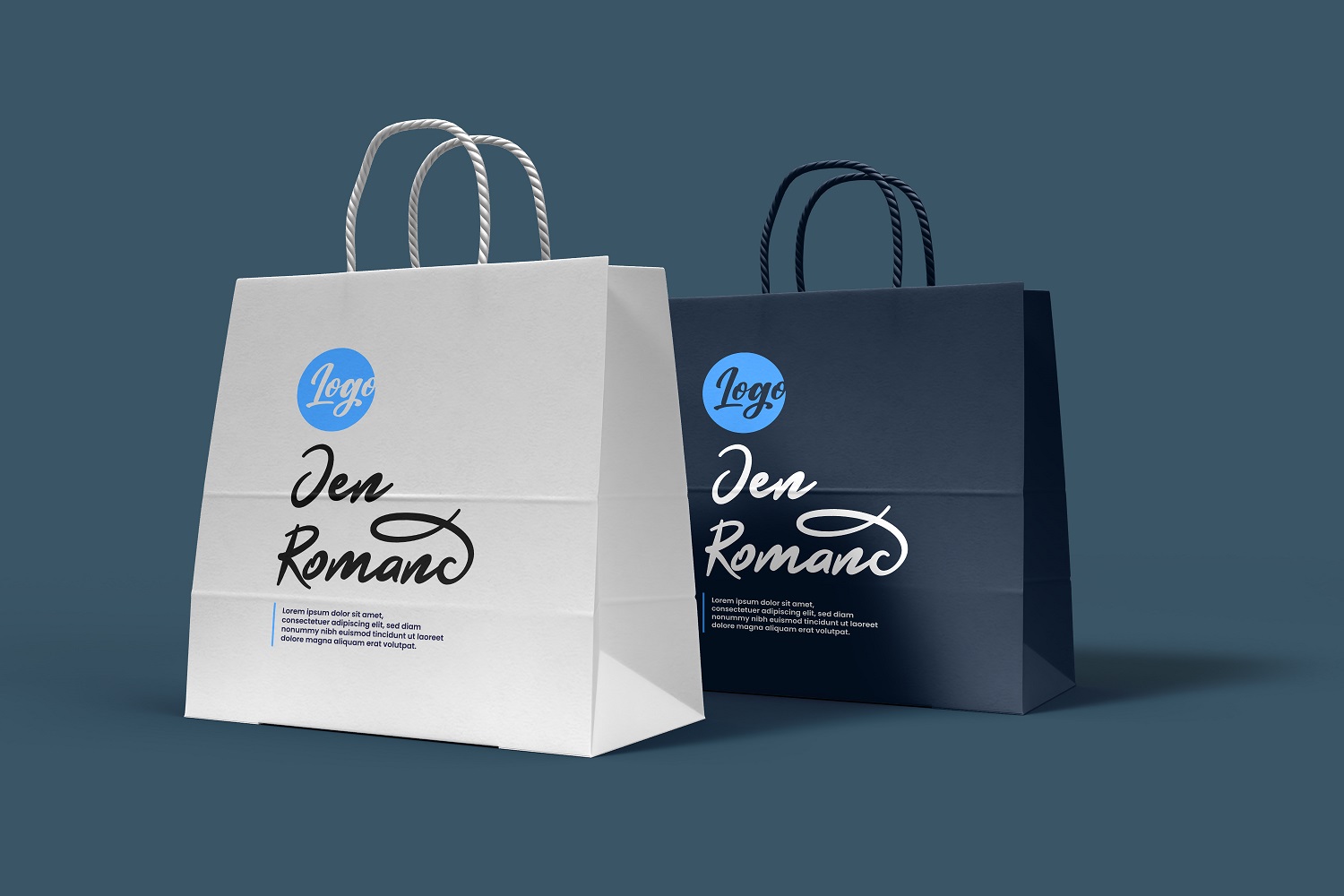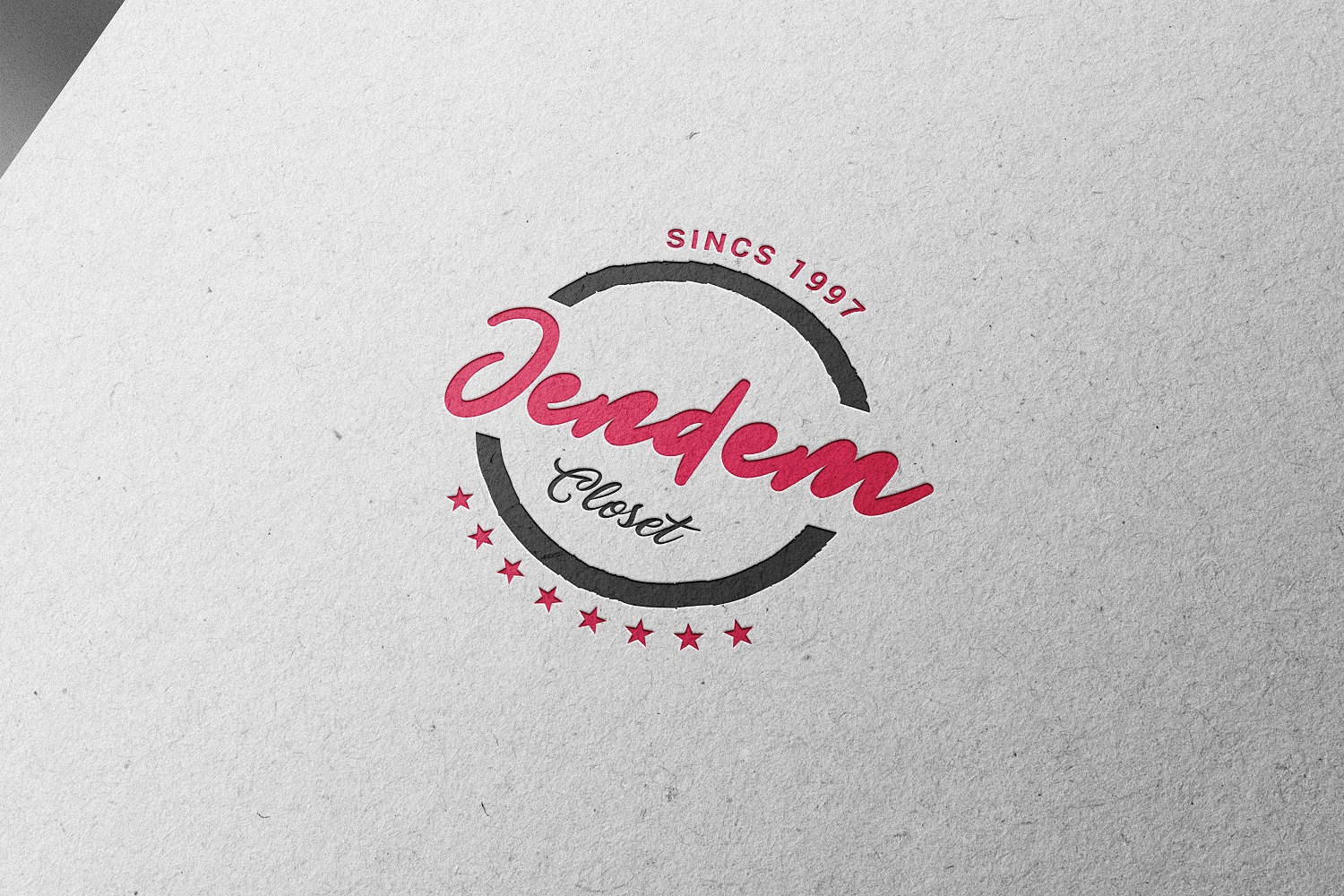
Unleash your creativity with the dynamic Hayana Brush Script Font! This lively typeface showcases bold, expressive strokes that emulate the artistry of brush lettering, bringing an energetic flair to your designs. Ideal for crafting eye-catching posters, playful branding, and modern invitations, Hayana adds a fun and casual touch to any project. Its unique character and fluid style make your text stand out while maintaining a friendly, approachable vibe. Download Hayana today and let your designs convey a sense of joy and creativity!